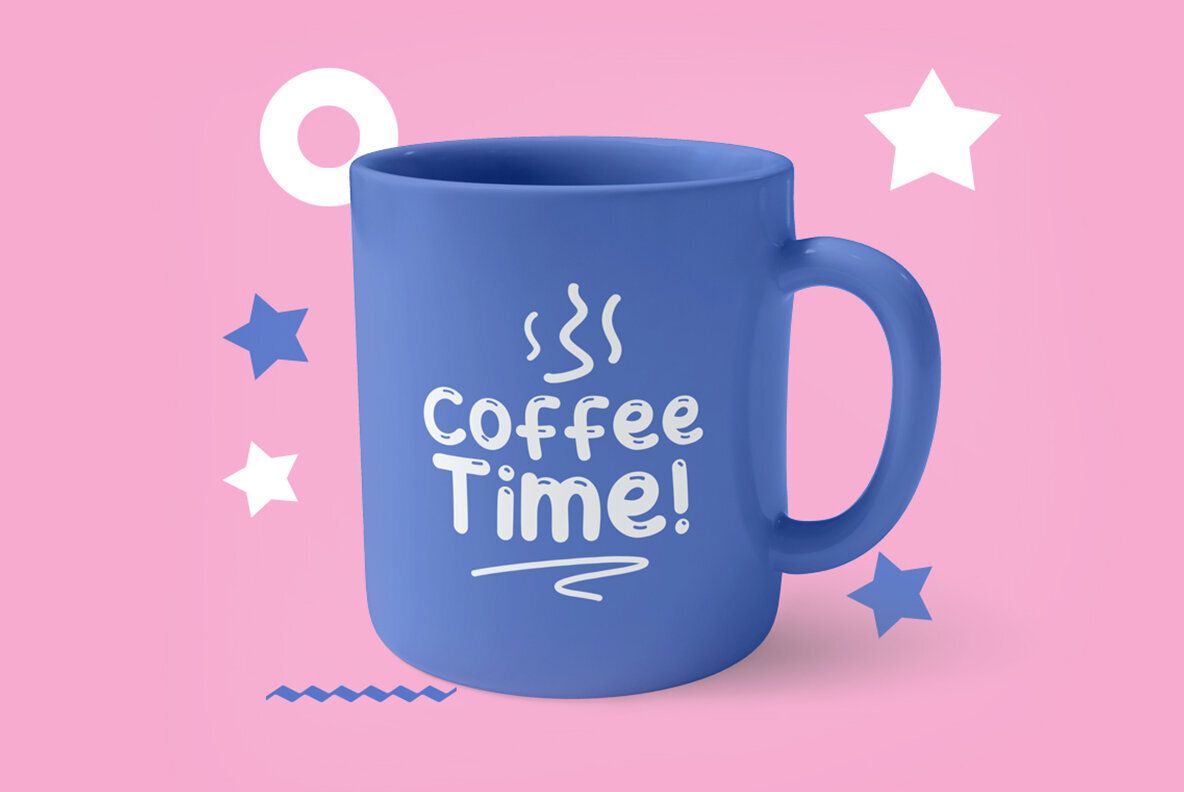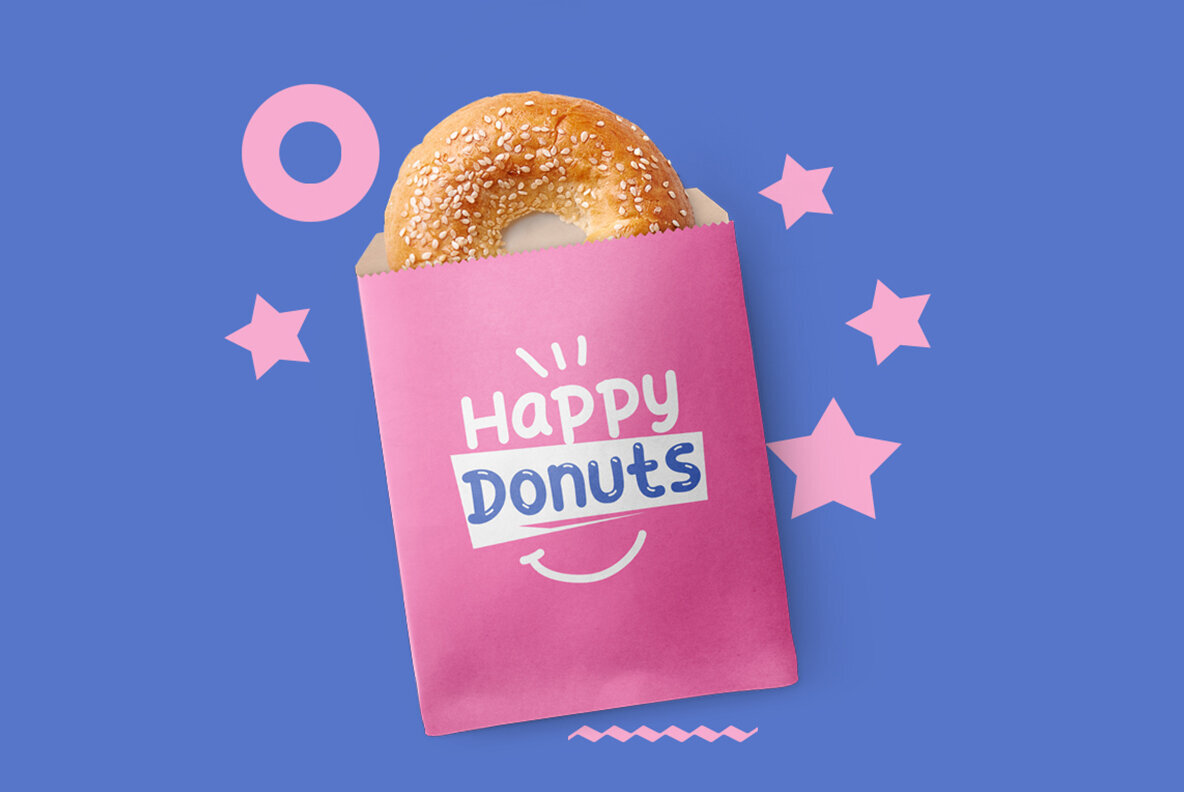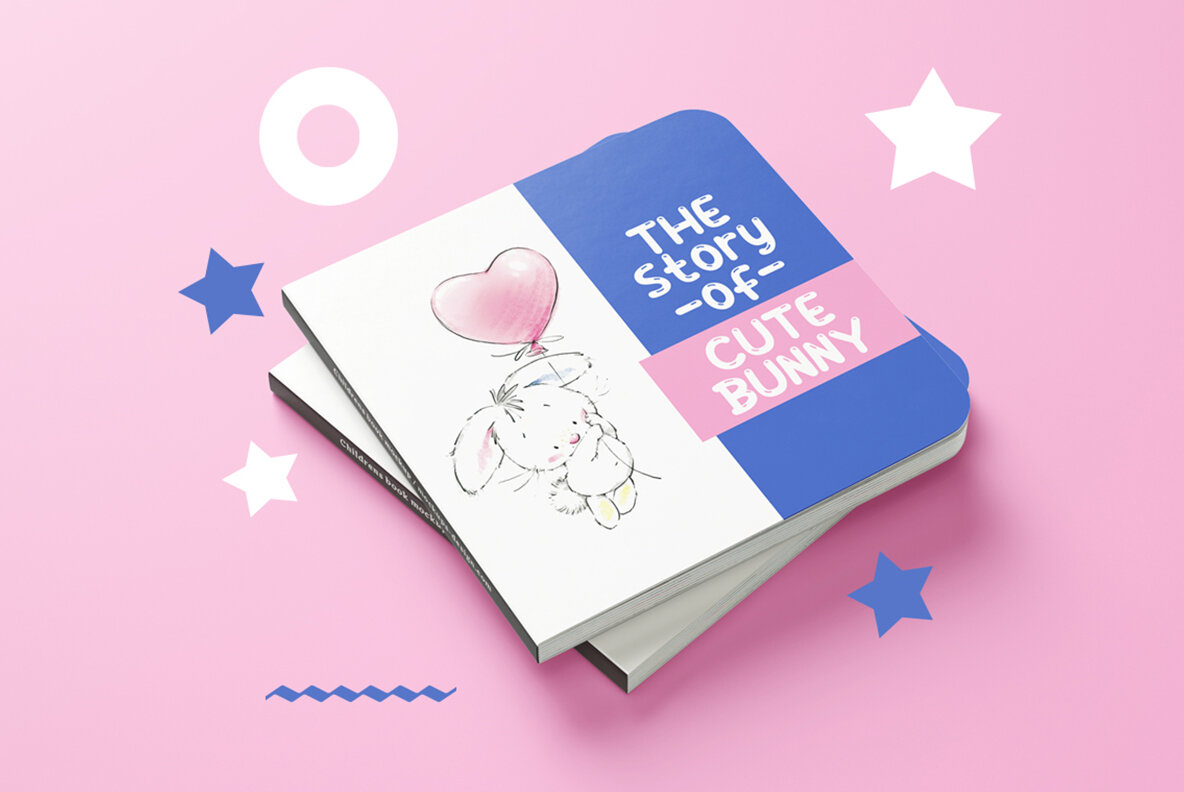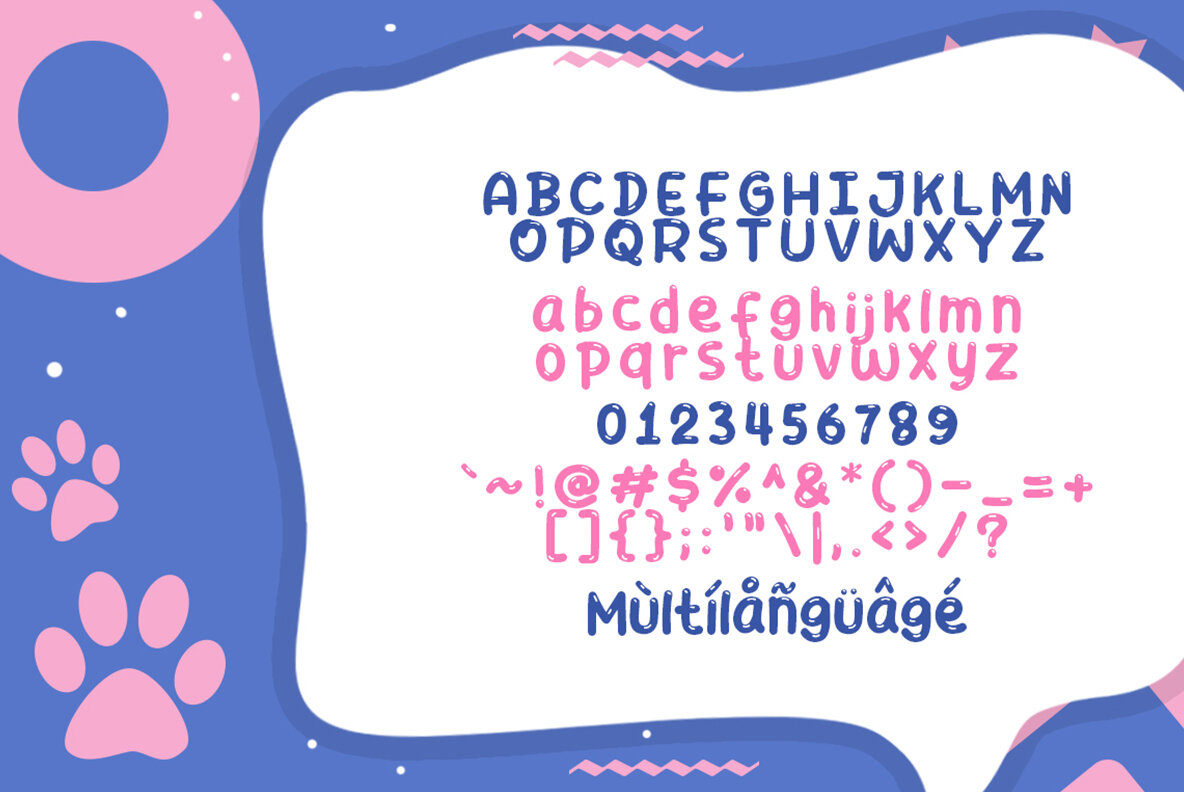
Playkiddo Font
Playkiddo is a fun and cool display font. Whether you use it for cartoon-related designs, children’s games, or just any creation that requires a playful touch, this font is the perfect choice for your designs!